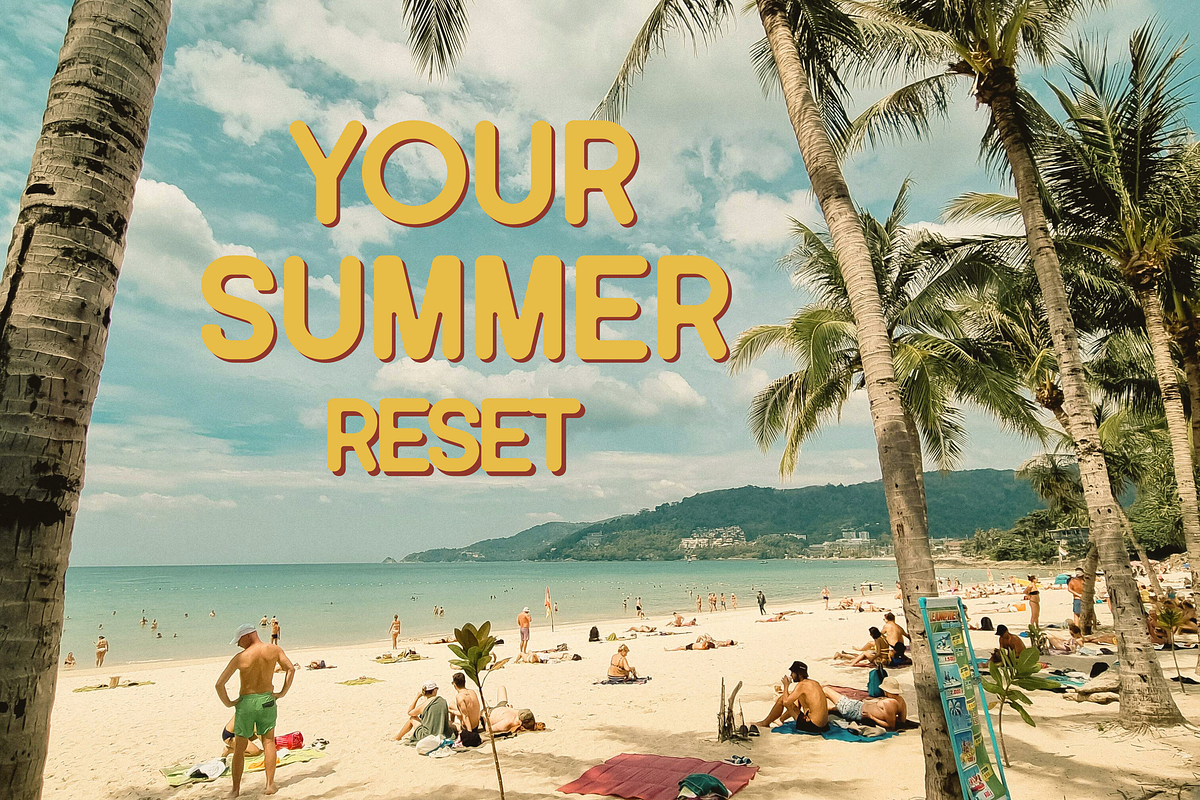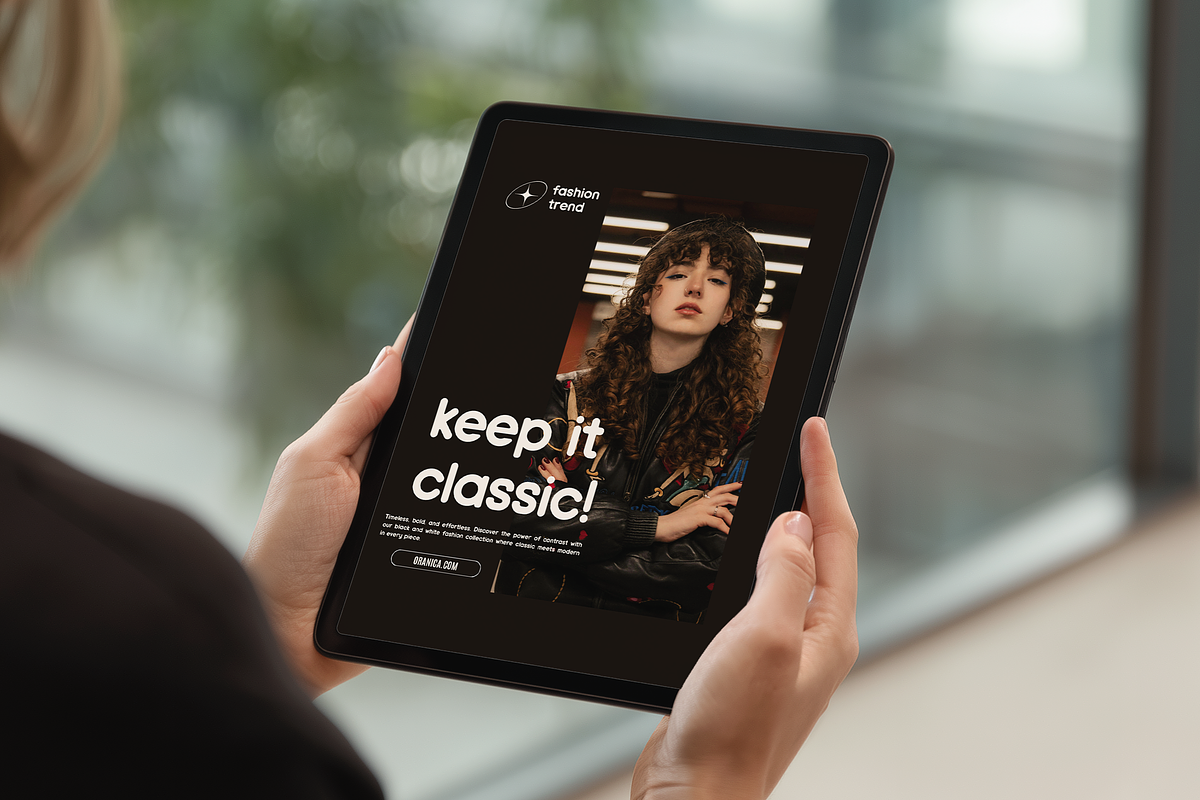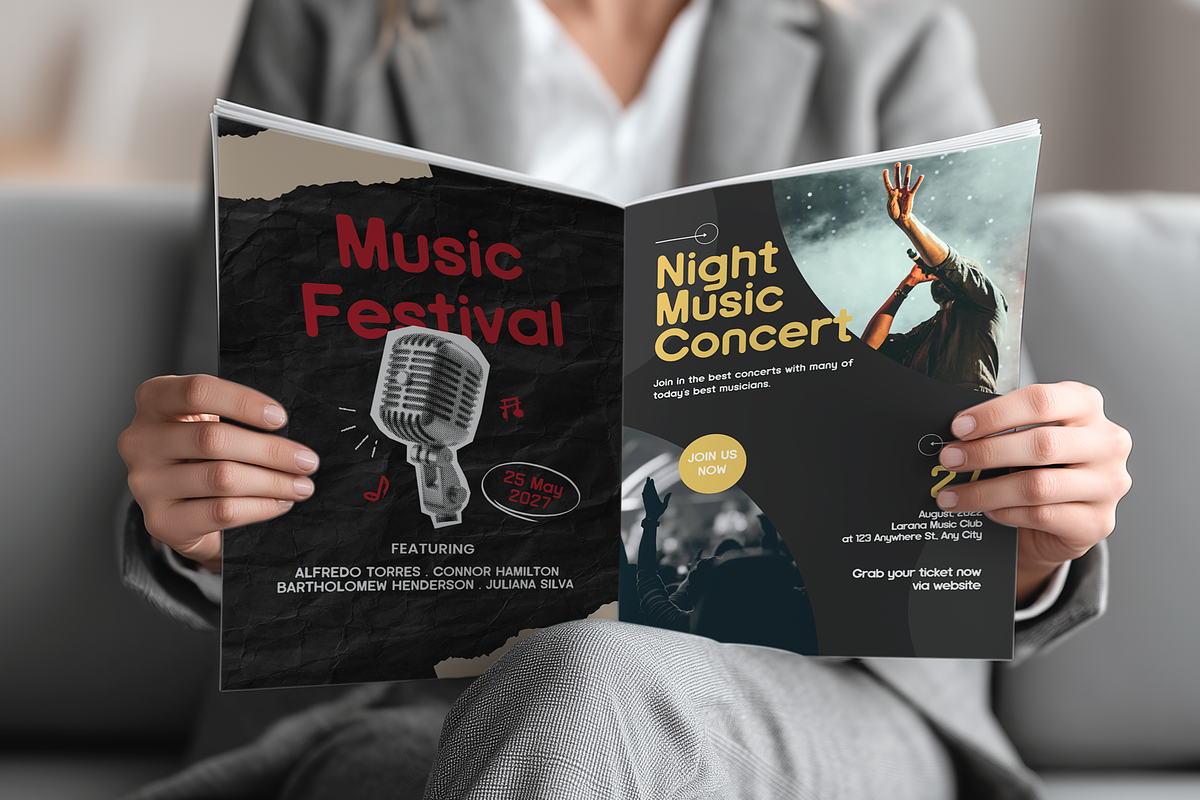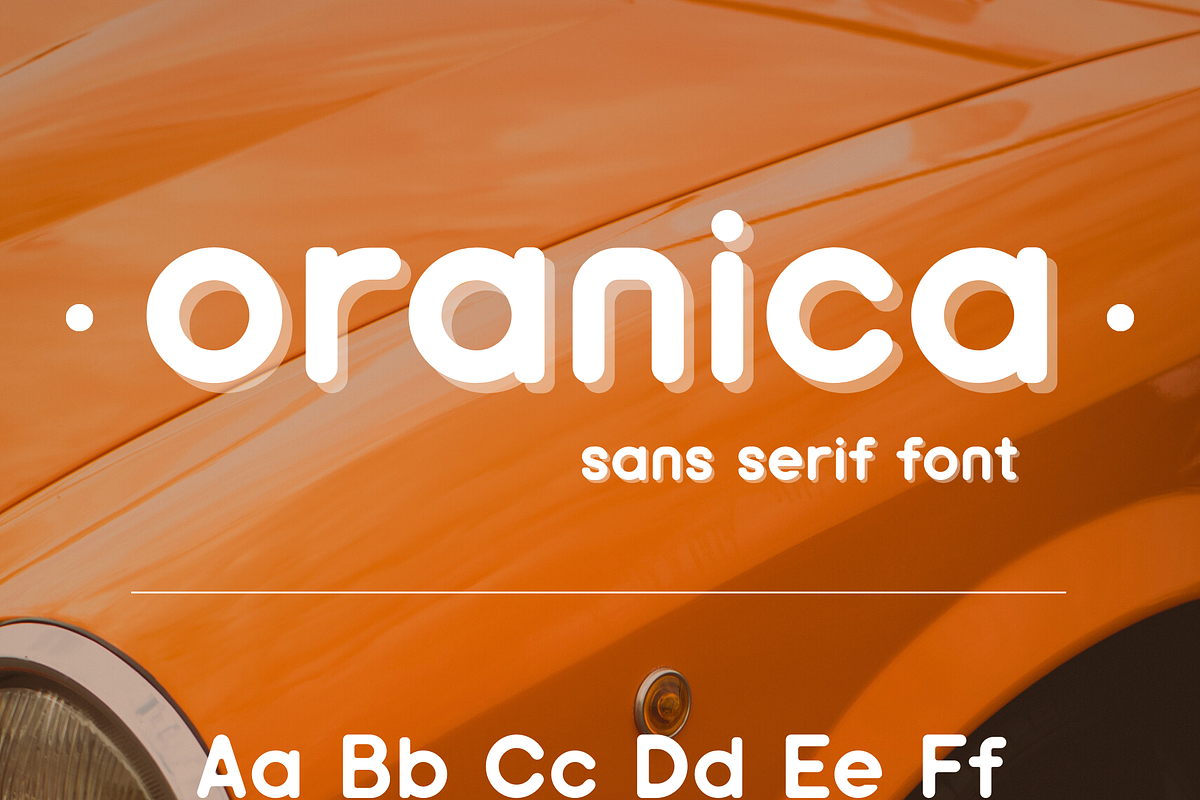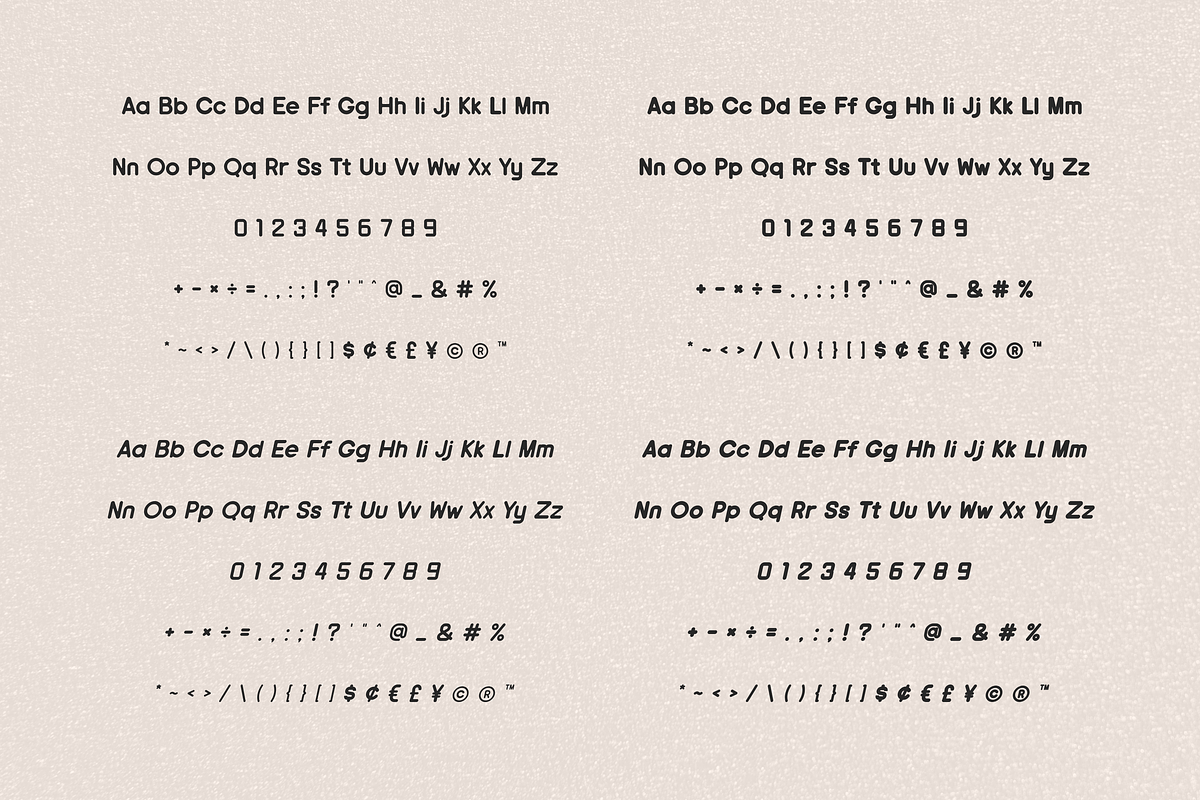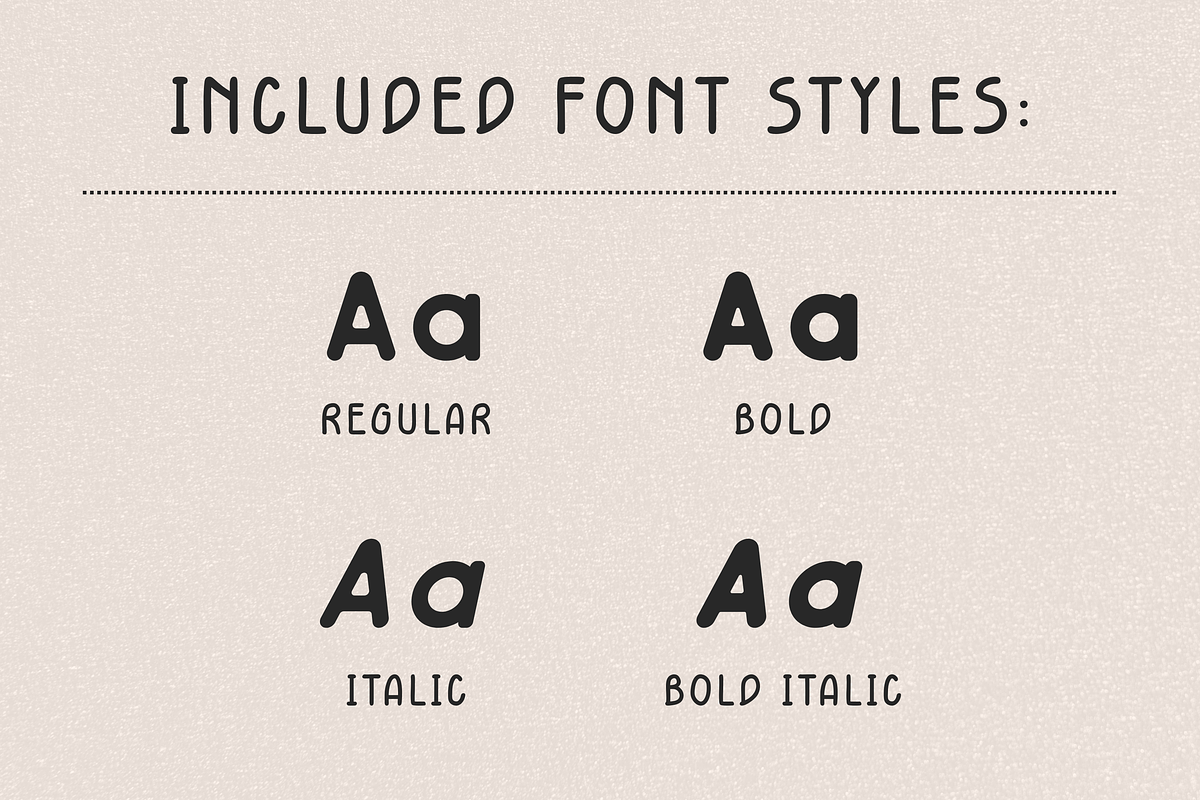
Rounded Sans Serif font - Oranica
Oranica – Modern Rounded Sans Serif Font
Oranica is a clean, smooth, and modern rounded sans serif font designed to bring a friendly yet professional feel to your projects. With its soft curves and minimal structure, it works beautifully for branding, logos, packaging, social media graphics, and website design.